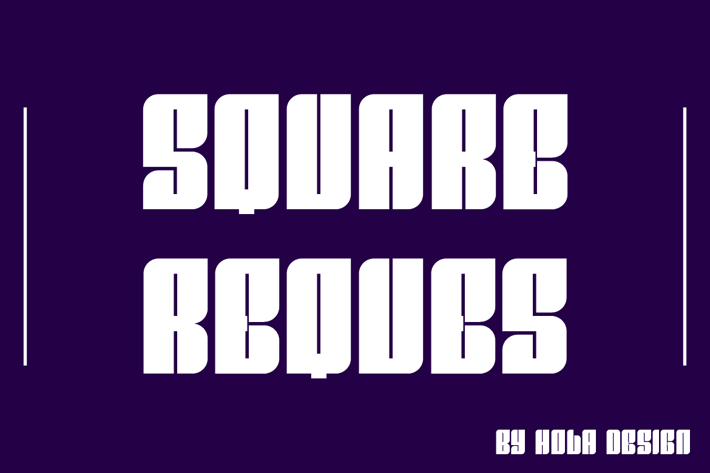
Square Reques - Bold Sans Serif Font
Square Reques Font is unique . Ready to use for your design like labeling, movie sceen, poster, movie title, gigs, album covers, logos, and much more.